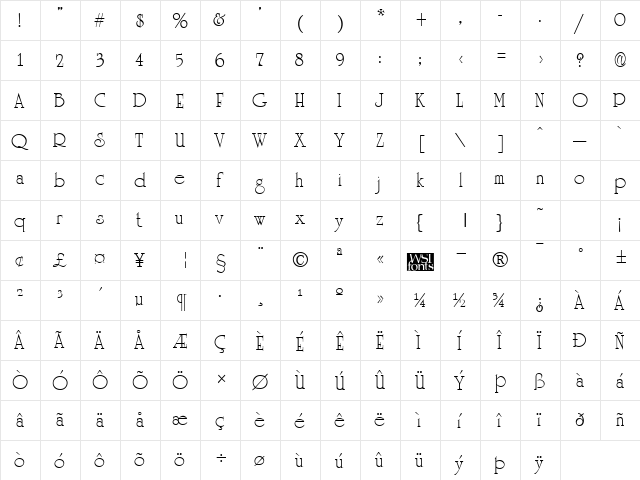
UniversityVariation Regular
Design Context for UniversityVariation Typeface
UniversityVariation takes a measured approach to typography — its balanced proportions and neutral character make it a reliable workhorse for both digital and print work.